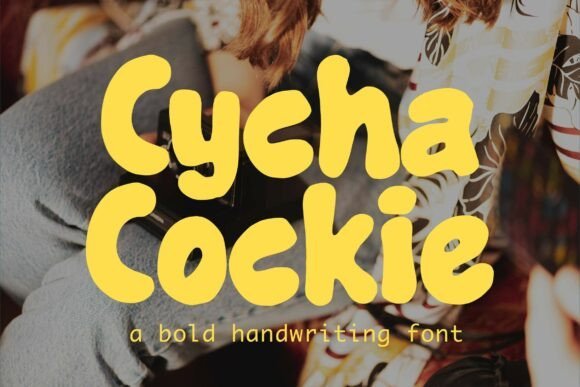
Give Your Designs a Personal Touch with Cycha Cockie Font
You know that moment when you’re brainstorming ideas for a new project and you stumble upon the perfect font? It’s like a lightbulb goes off in your head and you can envision the entire design coming together. For many designers, that moment is what makes all the hard work worth it. And for those who are looking to bring a stylish and personal touch to their professional branding projects, we’ve got just the thing: Cycha Cockie Font.
This bold handwritten display font is the perfect solution for designers who want to make a lasting impression. With its distinctive and expressive letterforms, Cycha Cockie Font stands out from the crowd and is ideal for logotypes, watermarks, posters, promotions, product packaging, and more. Whether you’re working on a high-end branding project or a fun promotional campaign, this versatile font is sure to bring your designs to life.
Cycha Cockie Font Key Features
- Font Family: Cycha Cockie is a sans-serif font family.
- Unique Characteristics: Cycha Cockie features a bold, modern design with rounded edges and a friendly feel, making it suitable for various applications, including logos, headings, and body text.
Cycha Cockie Font Review
I recently had the chance to work with the Cycha Cockie font, and here’s my honest review.
- The font’s playful, quirky feel is perfect for projects that need a bit of whimsy.
- The character set is comprehensive, making it suitable for a wide range of applications.
- The font is highly customizable, with a range of OpenType features that allow for advanced typographic control.
- The font’s weight range is well-balanced, with a clear distinction between light and bold weights.
- The font’s kerning can be a bit off at times, especially in certain combinations of characters.
- The font’s italic styles can feel a bit inconsistent, which may be distracting in certain contexts.
- The font’s performance in small font sizes can be a bit rough, with some characters appearing fuzzy or distorted.
Overall, I’d say the Cycha Cockie font is a solid choice for projects that need a playful, whimsical feel. While it’s not perfect, its strengths outweigh its weaknesses, and with some careful attention to detail, it can be a great addition to your design toolkit.
For best results, use Cycha Cockie Font for headings and titles, and pair it with a clear sans-serif font for body text.
Common use cases for Cycha Cockie Font include:
1. Branding and logo design
2. Creative typography projects
3. Social media graphics and ads
4. Print design projects
Alternatives to Cycha Cockie Font
Great Vibes is a beautiful, elegant script font that is perfect for creative and artistic projects. It is ideal for use in logos, branding, and packaging design. Great Vibes has a more refined and sophisticated look compared to Cycha Cockie Font, making it suitable for high-end and luxury brands.
Comparison: Great Vibes Font has a more polished and refined look, while Cycha Cockie Font has a more playful and quirky feel.
Carolyna Pro is a modern script font that is great for creating a sophisticated and elegant look. It is ideal for use in branding, packaging, and advertising design. Carolyna Pro has a more streamlined and minimalist look compared to Cycha Cockie Font, making it suitable for modern and trendy brands.
Comparison: Carolyna Pro Font has a more modern and sleek look, while Cycha Cockie Font has a more vintage and playful feel.
Baloo Paaji Font
Baloo Paaji is a fun and playful script font that is perfect for creative and artistic projects. It is ideal for use in logos, branding, and packaging design. Baloo Paaji has a more whimsical and quirky look compared to Cycha Cockie Font, making it suitable for brands that want to stand out and be remembered.